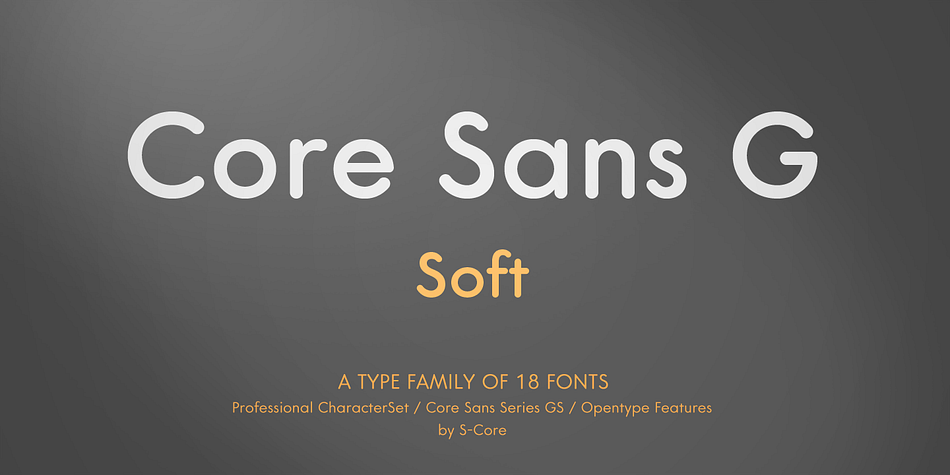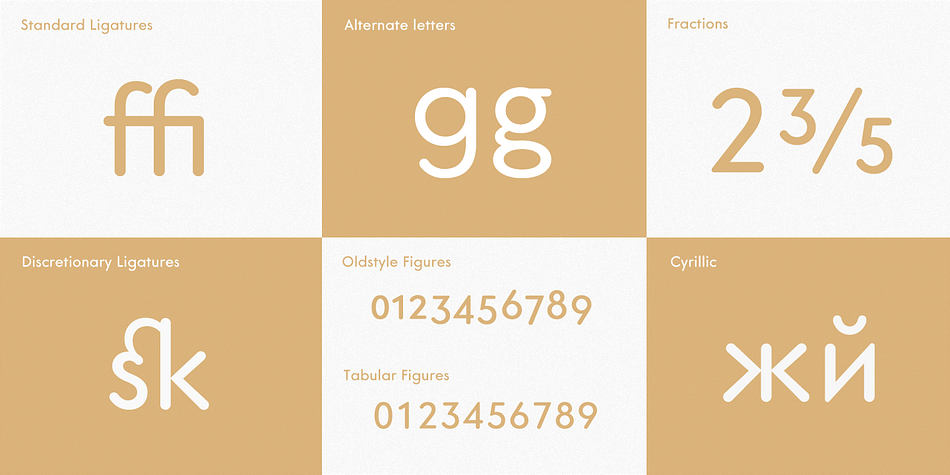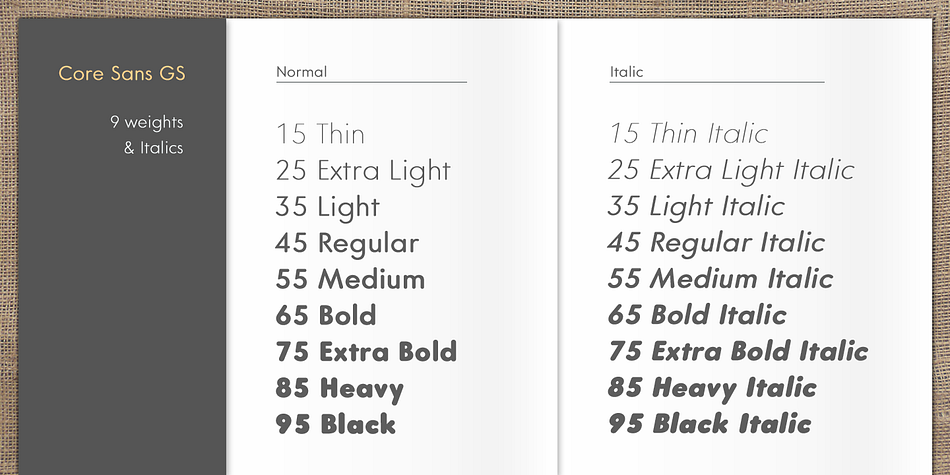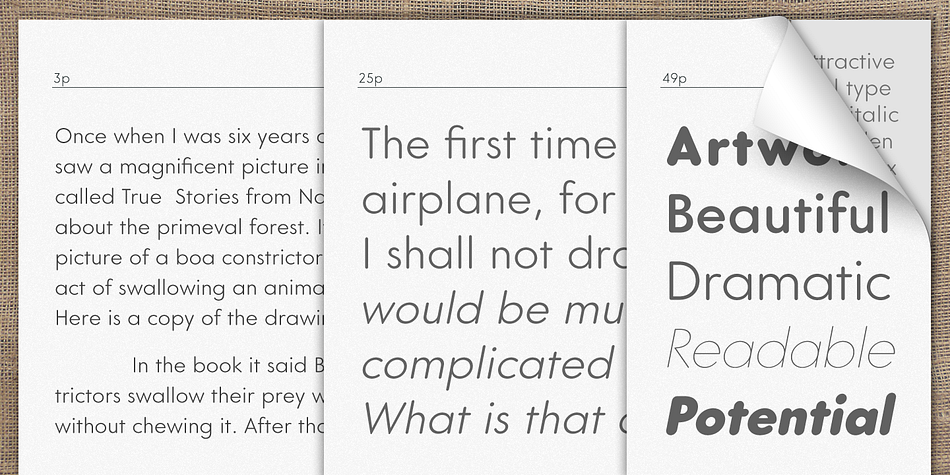
Core Sans GS is a sans serif font family. This typeface has eighteen styles and was published by S-Core.
The Core Sans GS Family is a rounded version of Core Sans G and a part of the Core Sans Series such as Core Sans N, M, A, E, D.
Core Sans GS is constructed of straight, circular or square shapes. These geometric shapes are inspired by classic geometric sans (Futura, Avenir, Avant Garde etc.). Every stem is a rectangle or a straight line and every letter, lowercase or uppercase, seems to be in perfect geometric form and even weighted.
The small x-height makes readability clean and clear. Core Sans G can be used equally well in headings or in body copy.
The Core Sans GS Family consists of 9 weights (Thin, Extra Light, Light, Regular, Medium, Bold, Extra Bold, Heavy, Black) with maching Italics. It also includes alternate characters (a,g,t) and a bunch of ligatures.
The Core Sans GS provides a wide range of character sets to support (Cyrillic, Central and Eastern European characters) and advanced typographical support with features such as proportional Figures, tabular Figures, numerators, denominators, superscript, scientific Inferiors, subscript, fractions, standard ligatures, discretionary ligatures and stylistic alternates.
Core Sans G is an ideal font family for use in magazines, web pages, screens, displays, and so on.